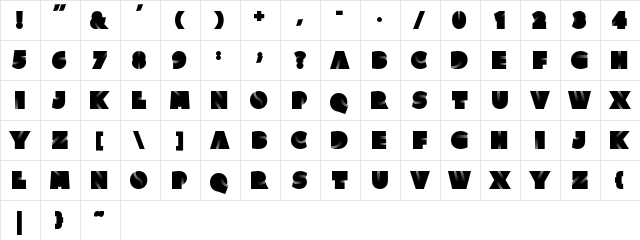
Clutchee Regular
| Foundry | Sinisa Komlenic |
| Designer | Sinisa Komlenic |
Design Context for Clutchee Typeface
Clutchee is a composed and adaptable typeface that performs quietly and consistently across a wide range of design contexts.